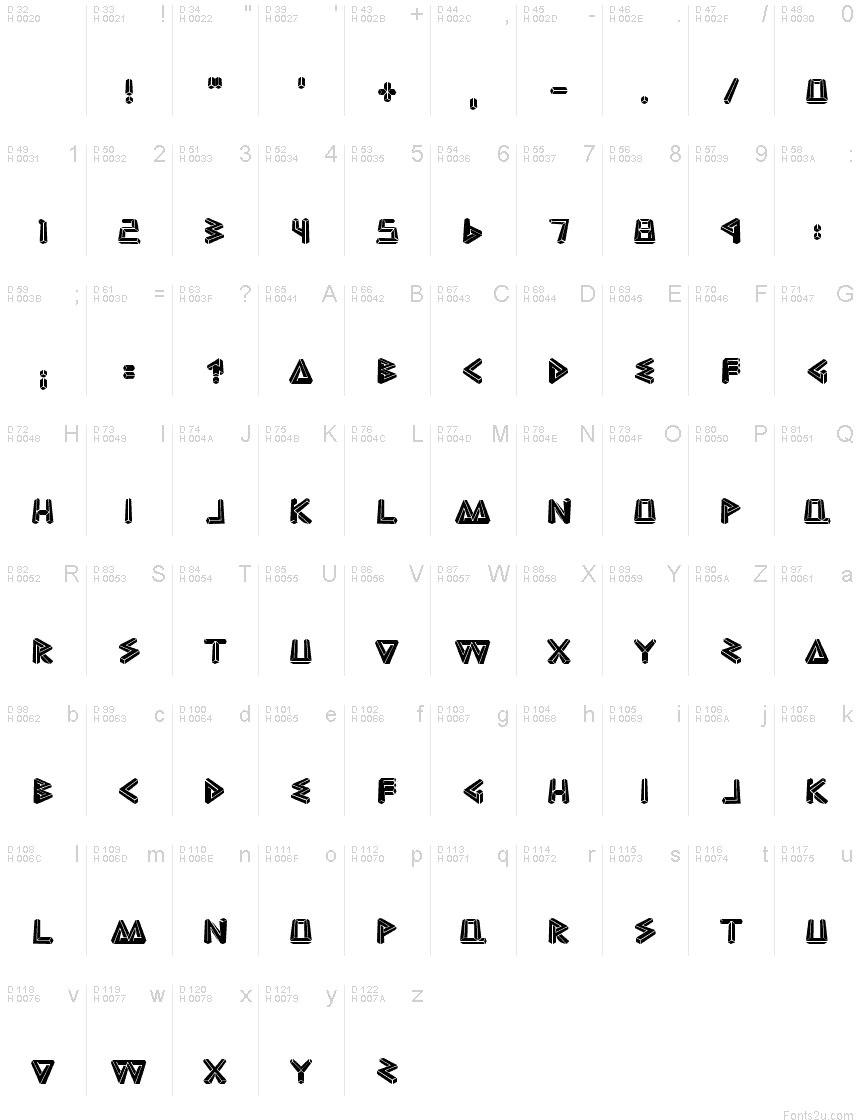
Bad Escher is a free 3D techno display font built around angular capitals and impossible-looking geometry. Sharp facets, inset channels, deep shadow planes, and abrupt changes of direction make the letters resemble folded beams viewed from conflicting angles, with an unmistakable optical-puzzle quality.
Its retro-futurist style is especially suited to science-fiction posters and game title cards, where the lettering can become part of the depicted machinery or architecture. The same structural drama gives electronic-music merchandise, technology branding, and experimental packaging a hard engineered identity, with the maze-like strokes supplying a recognizable product motif.